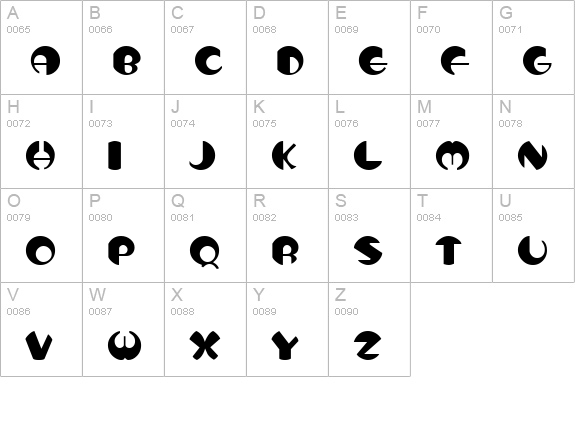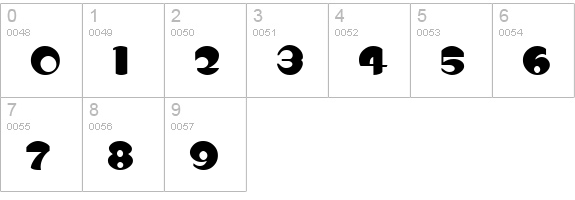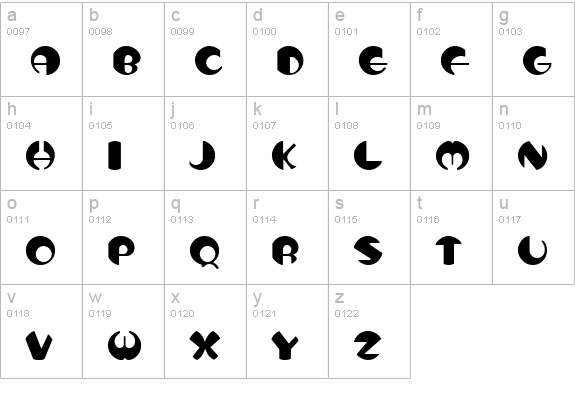
Totem Font Details
Totem font is a stunning display font that effortlessly combines elegance with a touch of modernity. Its sleek and unique design makes it a perfect choice for a wide range of creative projects, from branding and advertising to web design and packaging. With its clean lines and distinctive letterforms, Totem font commands attention and adds a touch of sophistication to any project. One of the best features of Totem font is that it is entirely free. Yes, you read it right! This exceptional font is freely available to download at FontsMarket.com. By offering this font for free, the creators of Totem font have made it accessible to designers and enthusiasts all over the world, allowing them to bring their creative visions to life without any cost constraints. Whether you are a professional designer looking to add a dash of uniqueness to your latest project or an aspiring artist exploring new creative possibilities, Totem font is the ideal choice. Its versatility and timeless appeal make it suitable for a variety of design purposes, ensuring that it will never go out of style. So why wait? Download Totem font today from FontsMarket.com and unlock a world of endless design possibilities. Let this remarkable font be your companion in creating visually captivating and memorable designs that leave a lasting impression. With Totem font, the possibilities are truly limitless.